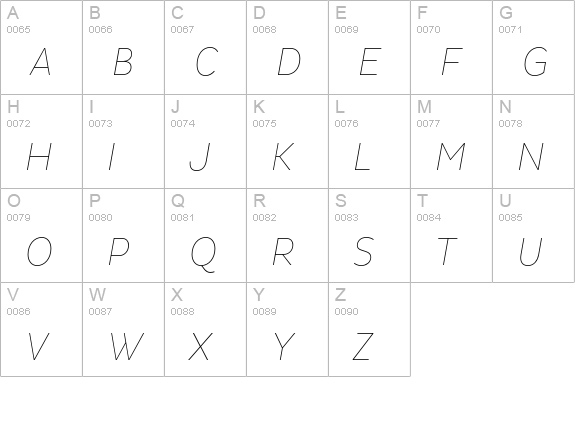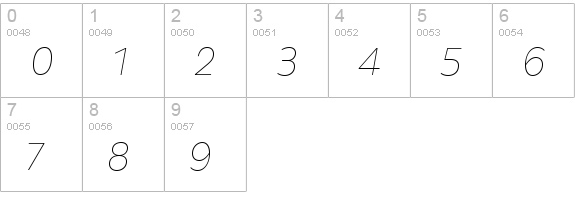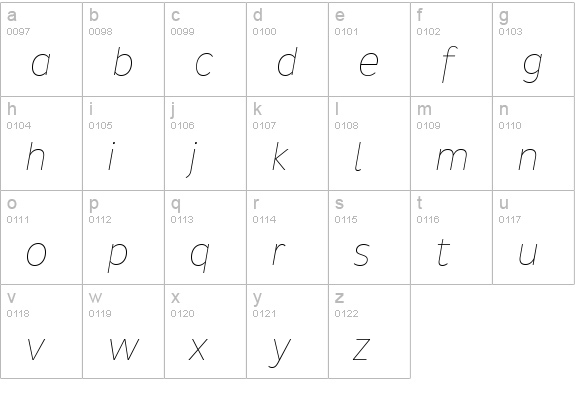
Pluto Sans Cond Thin Italic is a delicate, low-contrast, condensed-width, italic variant in the Pluto typeface family \xE2\x80\x94 well suited to fashion editorial, minimal branding, and high-contrast display.
Pluto Sans Cond Thin Italic font exudes elegance and sophistication with its sleek and slender design. The delicate italics add a touch of style to any text, making it perfect for fashion magazines, luxury branding, and editorial designs. Despite its refined appearance, this font maintains a modern and minimalistic look that is sure to capture attention. The best part? Pluto Sans Cond Thin Italic is available for free download at FontsMarket.com. Elevate your design projects with this beautiful typeface without breaking the bank. Whether you're working on a website, poster, or logo, this font will bring a touch of class and sophistication to your work. Download it now and unleash your creativity with Pluto Sans Cond Thin Italic!